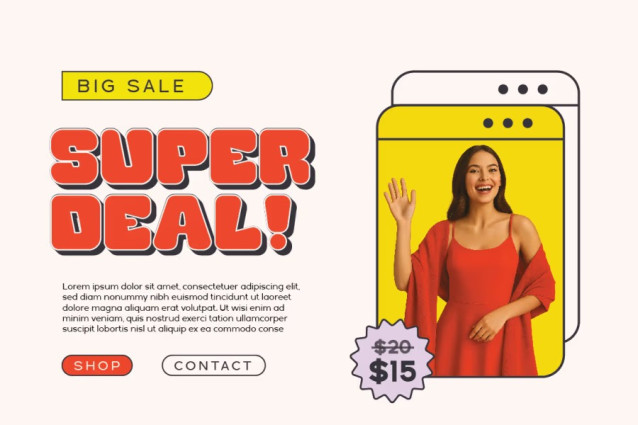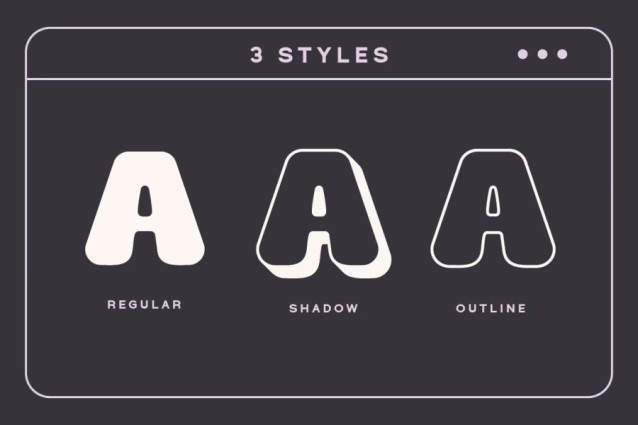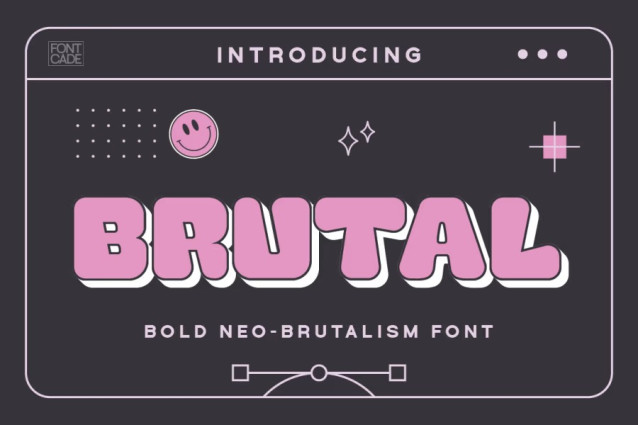
Brutal Font
Brutal font is a bold and playful display font with chunky, rounded shapes. Its loud and fun look makes it a great match for Neo Brutalism design. Perfect for bold posters, web layouts, and modern, expressive branding.